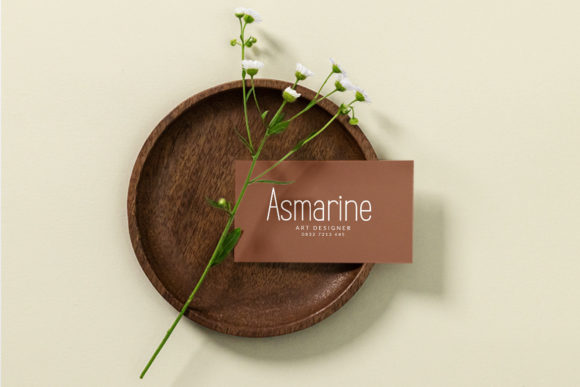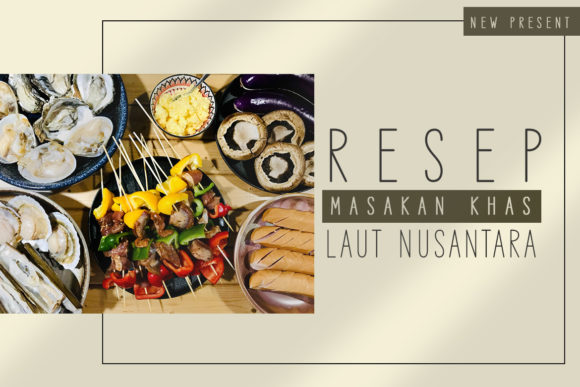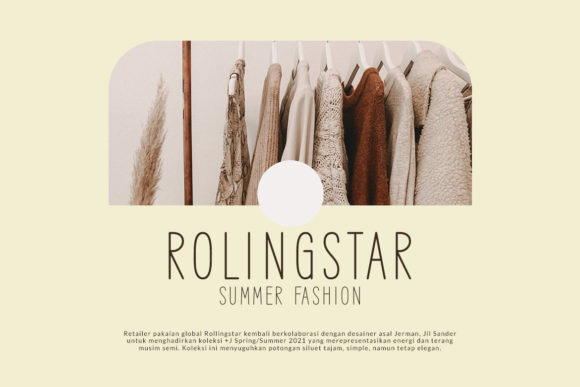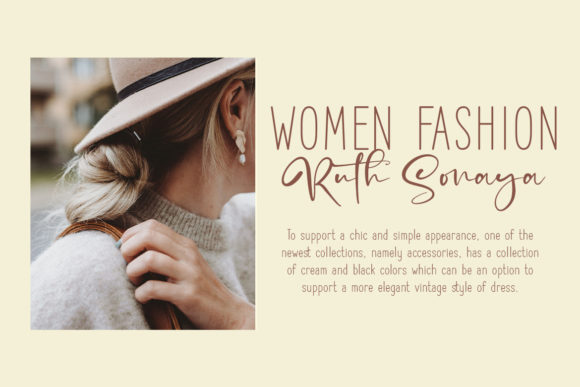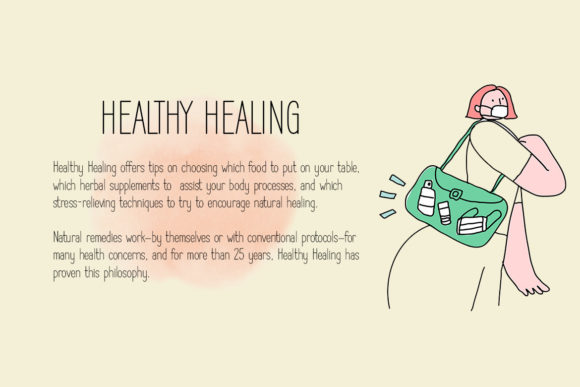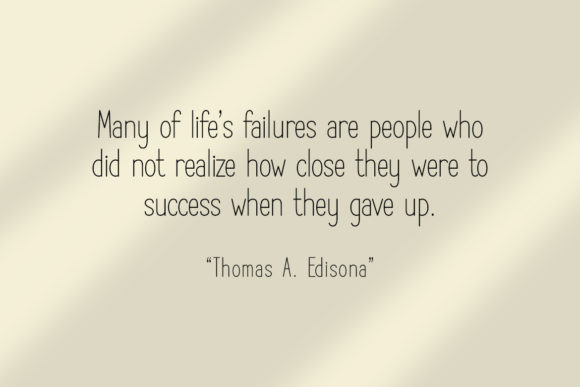
Discover the Elegance of Amber & Margot Font: A Thin and Clean Sans Serif for Your Designs
In the world of typography, fonts play a crucial role in conveying the message and aesthetic of a design. For designers and crafters looking for a typeface that adds a touch of delicacy and sophistication, the Amber & Margot font is an excellent choice. This thin and clean lettered sans serif font has been gaining popularity for its versatility and neat vibes, making it perfect for a wide range of design projects.
What is Amber & Margot Font?
Amber & Margot is a modern sans serif font characterized by its thin and clean lines. Its elegant appearance makes it an ideal choice for designers who want to add a delicate touch to their creations. Whether you’re working on a branding project, a website, or crafting materials, this font is sure to elevate your design with its sleek and sophisticated look.
Key Features of Amber & Margot Font
- Thin and Clean Design: The font’s thin lines and clean design make it perfect for creating elegant and sophisticated designs.
- Sans Serif: The sans serif style gives the font a modern and minimalist look, making it versatile for various design applications.
- Elegant and Delicate: The font’s elegant appearance adds a touch of delicacy to any design, making it ideal for projects that require a refined aesthetic.
- Versatile: Amber & Margot font works great for a wide range of designs, from branding and advertising to crafting and digital media.
Use Cases for Amber & Margot Font
The versatility of Amber & Margot font makes it suitable for various design projects. Here are some use cases where this font truly shines:
- Branding and Logo Design: The font’s elegant and sophisticated look makes it perfect for creating logos and brand identities that require a touch of delicacy.
- Web Design: The clean and modern design of the font makes it an excellent choice for website designs that require a minimalist and sleek aesthetic.
- Crafting and DIY Projects: The font’s delicate and elegant appearance makes it ideal for crafting and DIY projects, such as making cards, invitations, and other paper crafts.
- Advertising and Marketing Materials: The font’s sophisticated look makes it perfect for creating advertising and marketing materials, such as brochures, flyers, and posters.
Tips for Using Amber & Margot Font Effectively
To get the most out of Amber & Margot font, here are some tips to keep in mind:
- Pair with Bold Fonts: Pairing the font with bold fonts can create a nice contrast and add visual interest to your design.
- Use for Headings and Titles: The font’s elegant appearance makes it perfect for use in headings and titles, adding a touch of sophistication to your design.
- Experiment with Colors: The font works well with a variety of colors, so don’t be afraid to experiment and find the perfect color scheme for your design.
In conclusion, Amber & Margot font is a versatile and elegant typeface that can add a touch of sophistication to any design. Its thin and clean lines, sans serif style, and delicate appearance make it perfect for a wide range of design projects. Whether you’re a designer or crafter, this font is sure to become a valuable addition to your typography arsenal.
So why not give Amber & Margot font a try? With its ease of use and versatility, it’s an excellent choice for anyone looking to elevate their designs with a touch of elegance and sophistication.